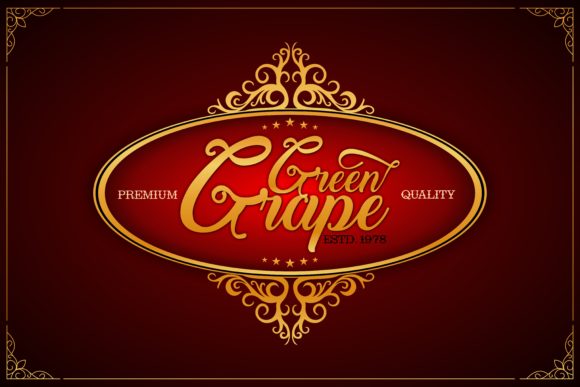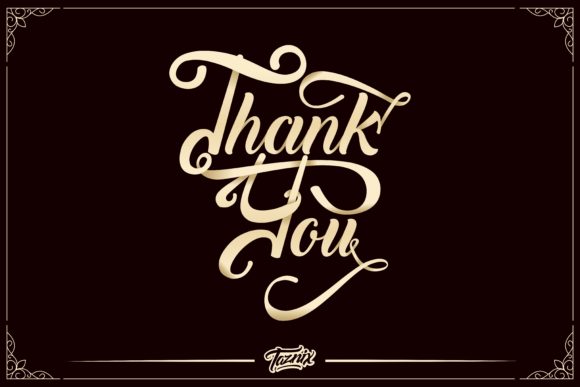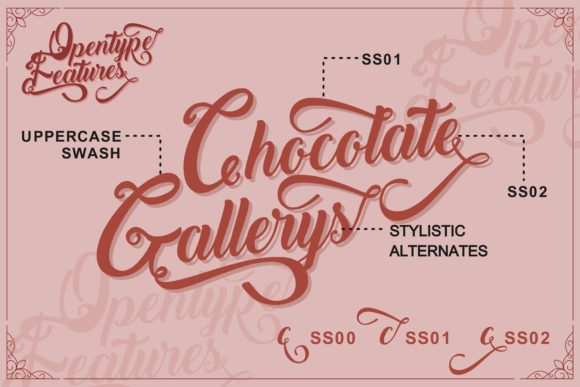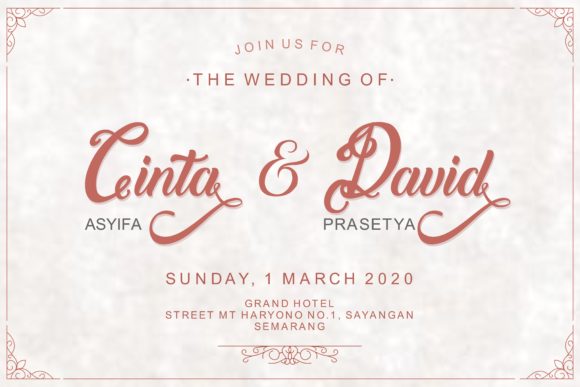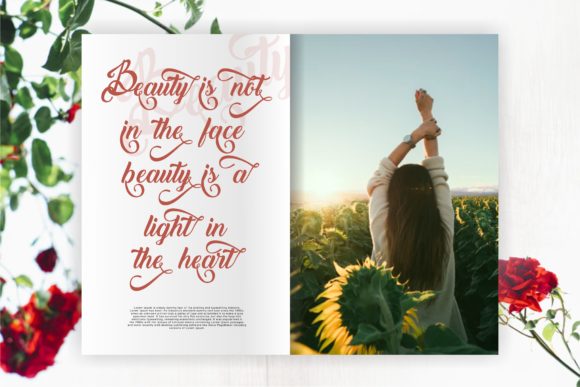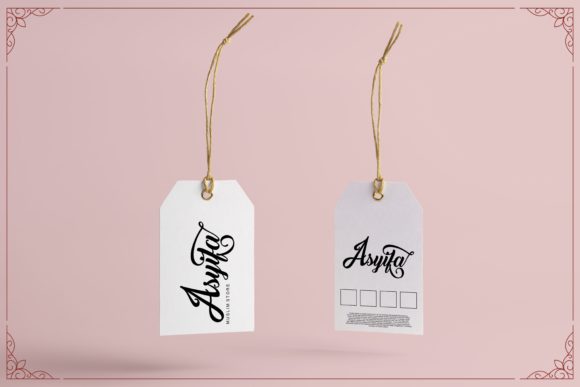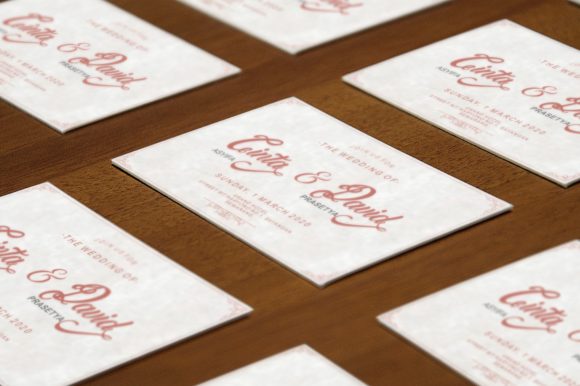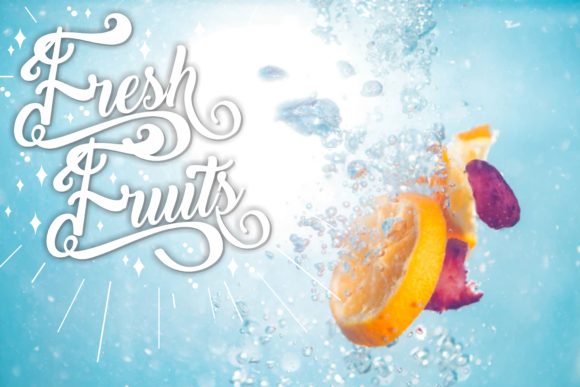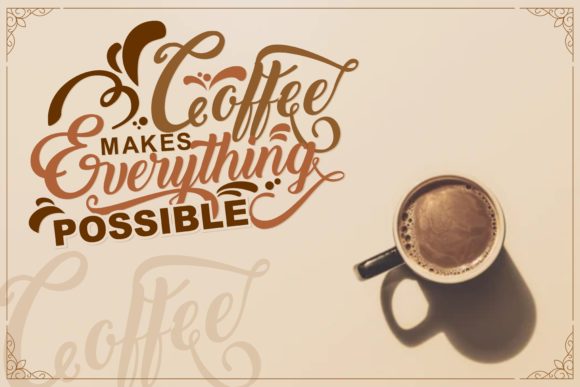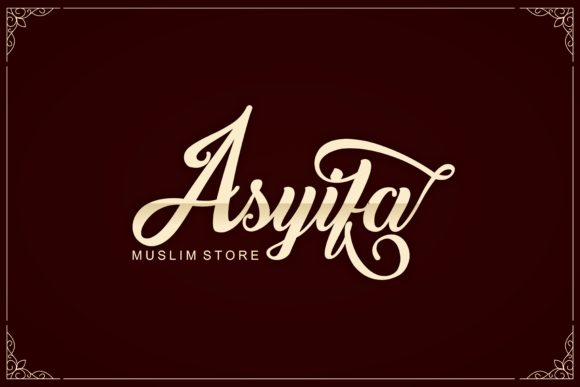
Cyrille Font
About Cyrille Font
Cyrille looks cute and elegant. This stunning handwritten font is a stylish homage to classic calligraphy. It features a varying baseline, smooth lines, gorgeous glyphs and stunning alternates. This font is PUA encoded which means you can access all of the cute glyphs and swashes with ease! It also features a wealth of special features including alternate glyphs and ligatures.